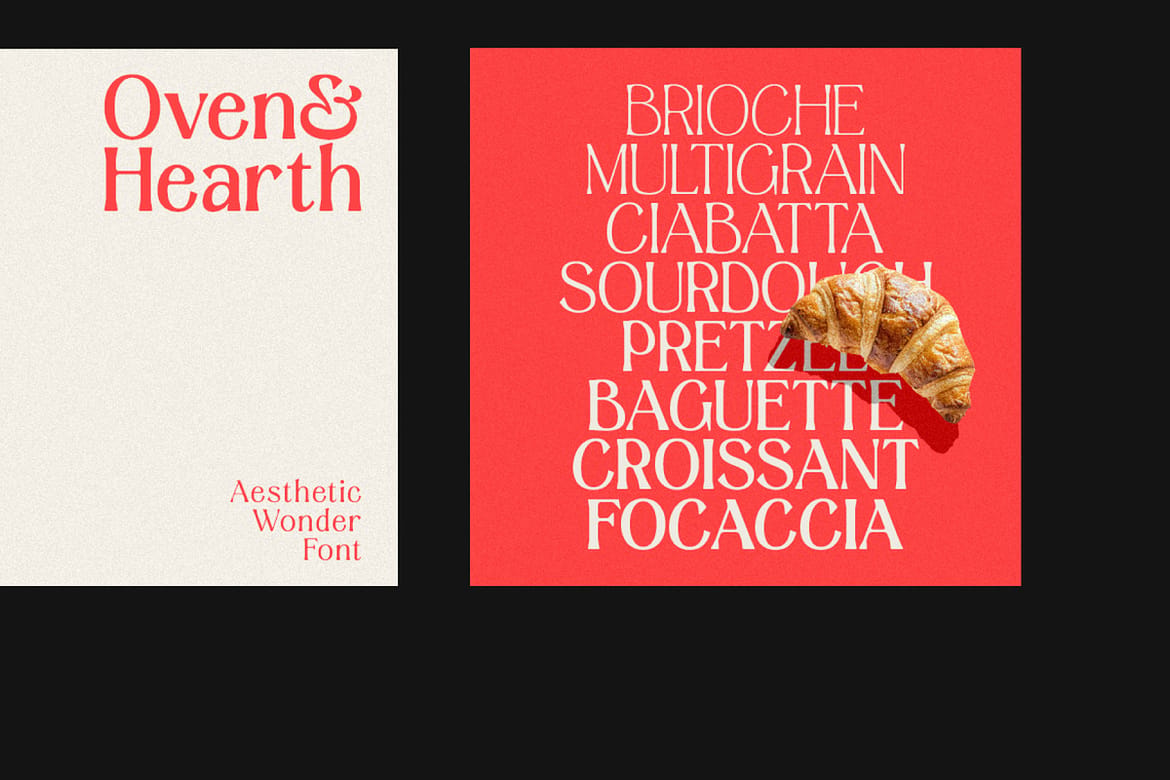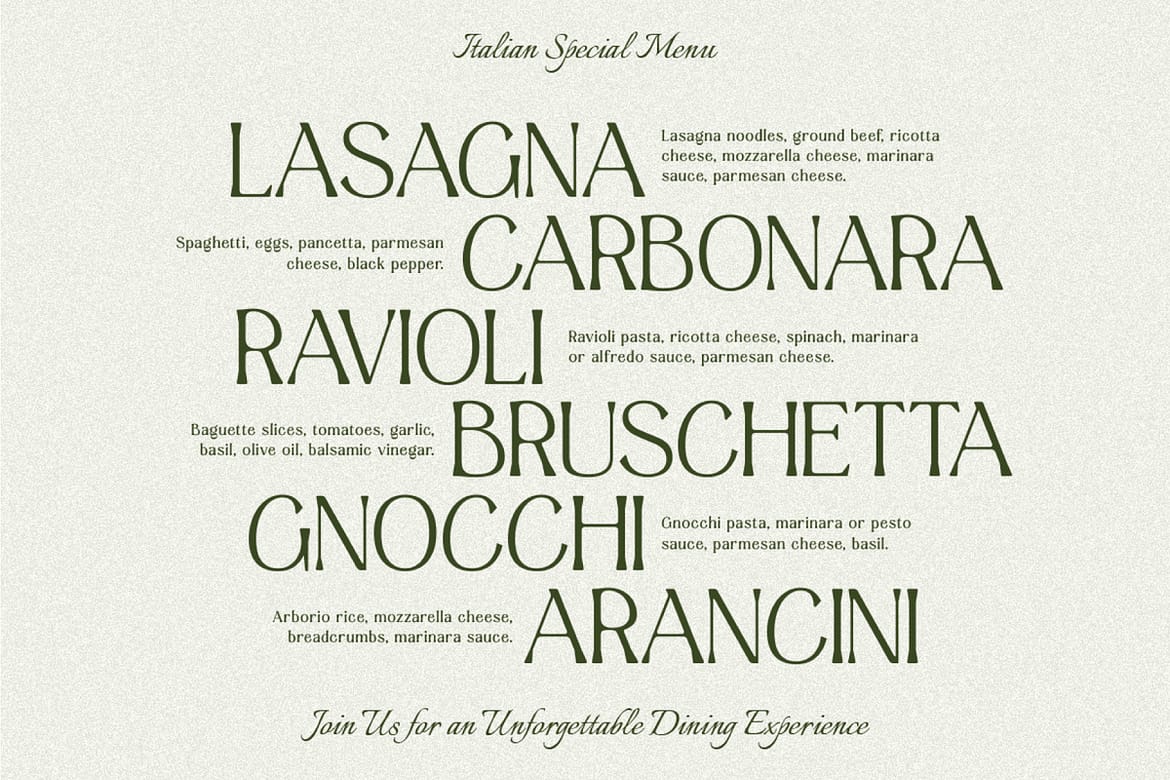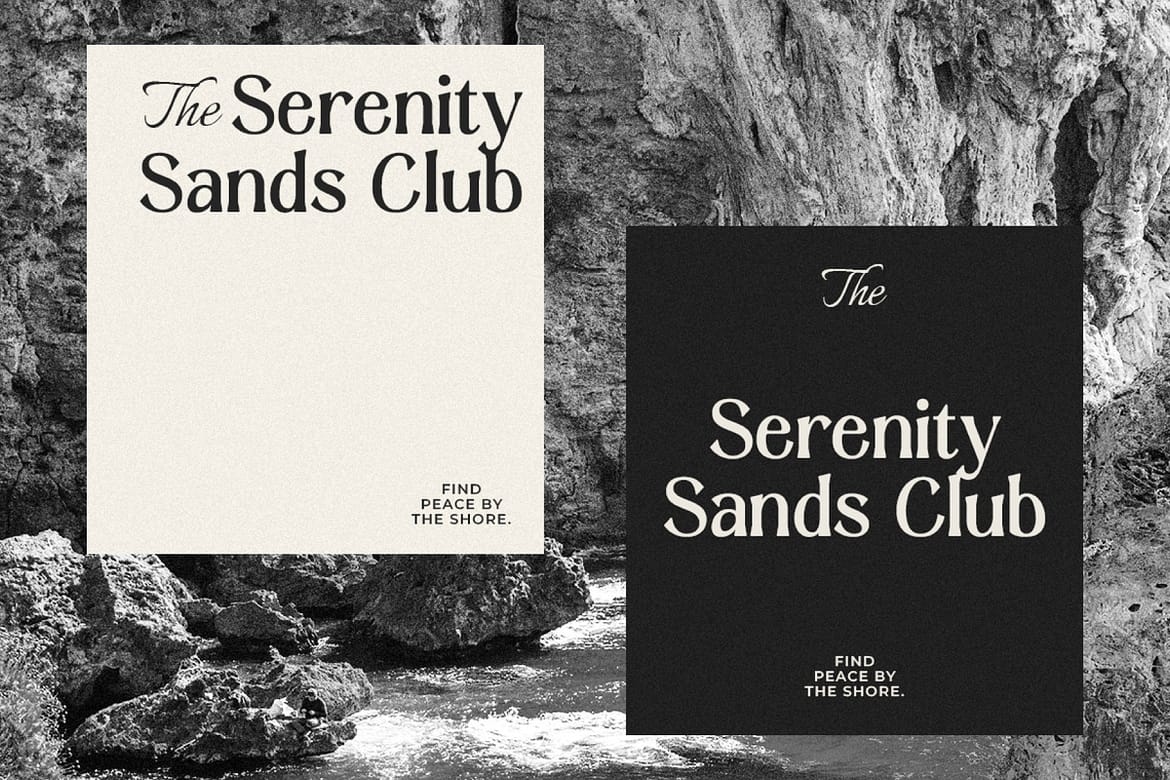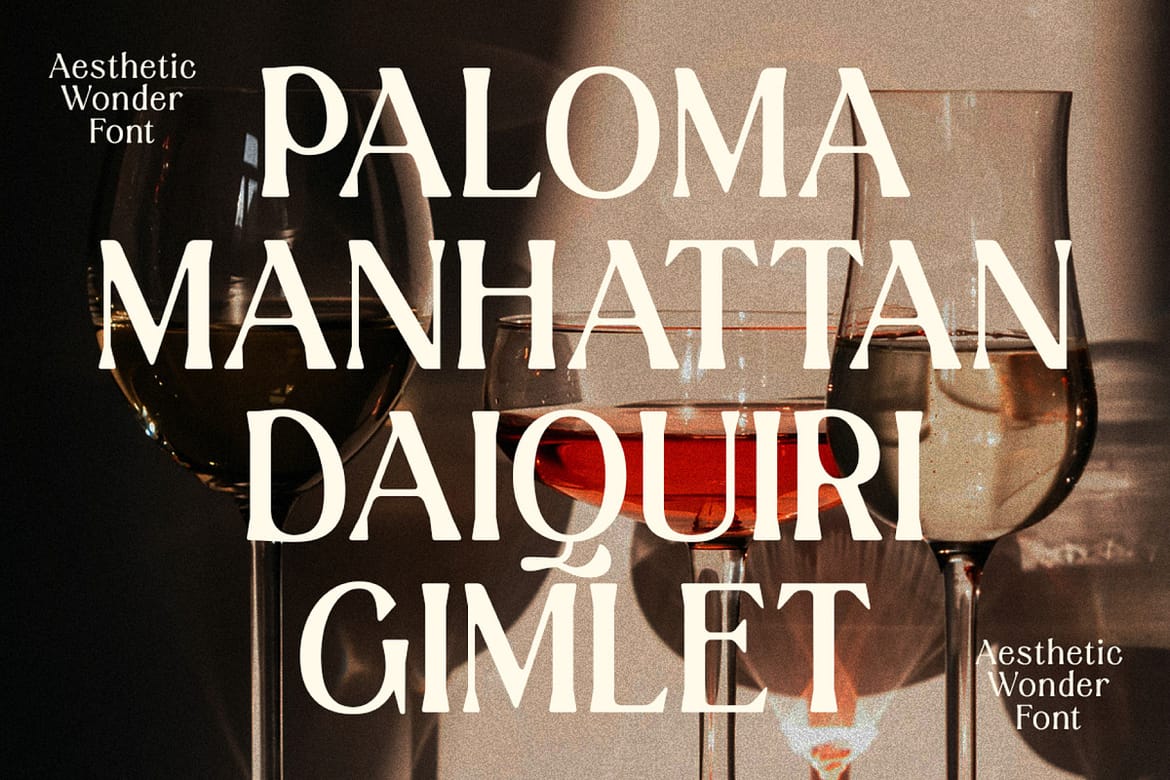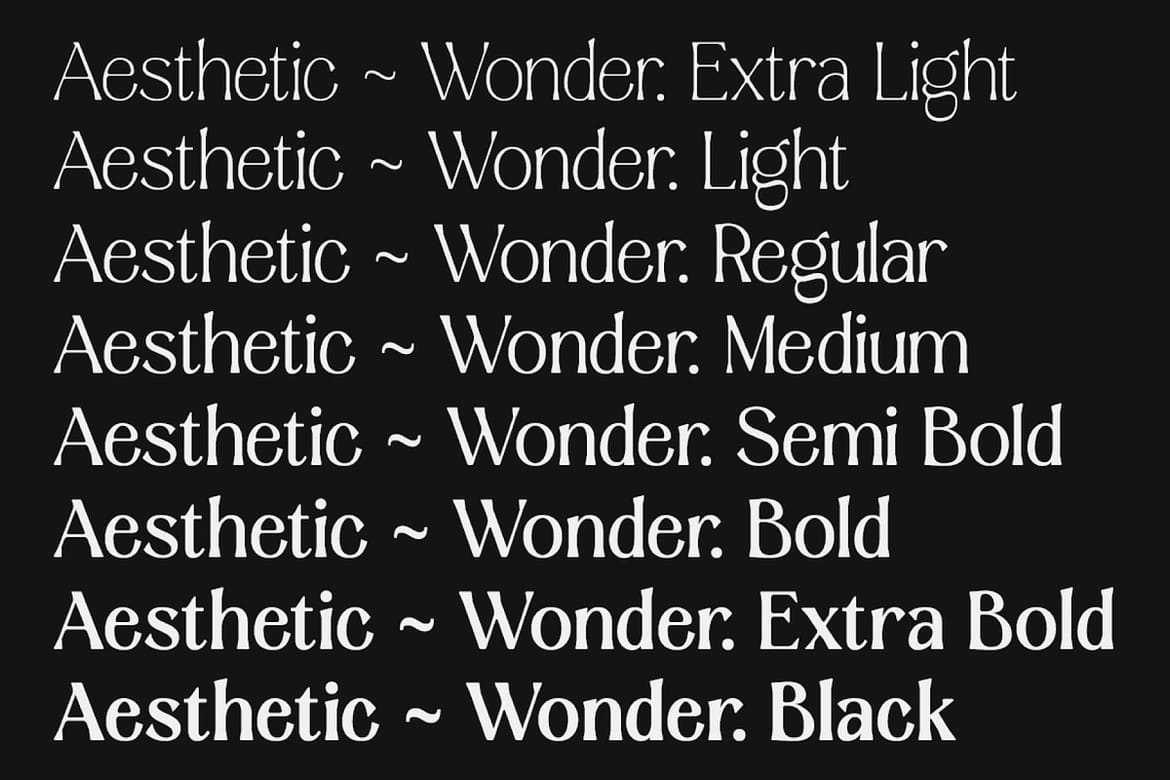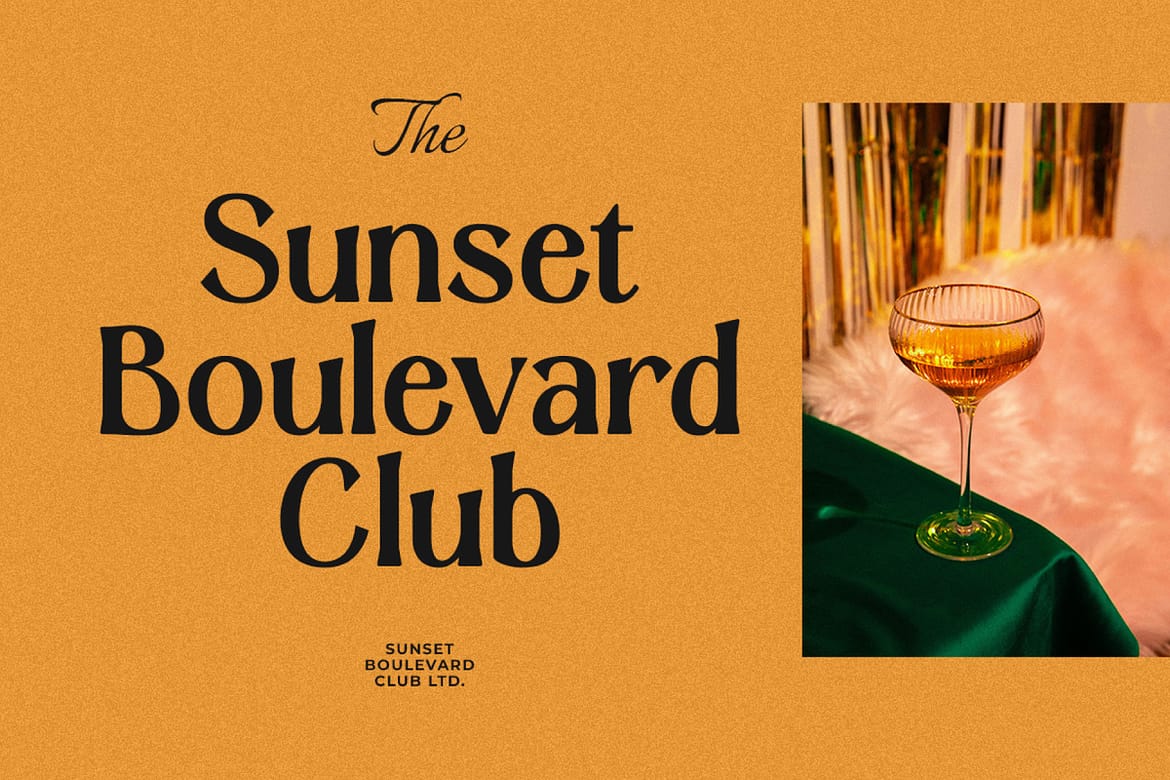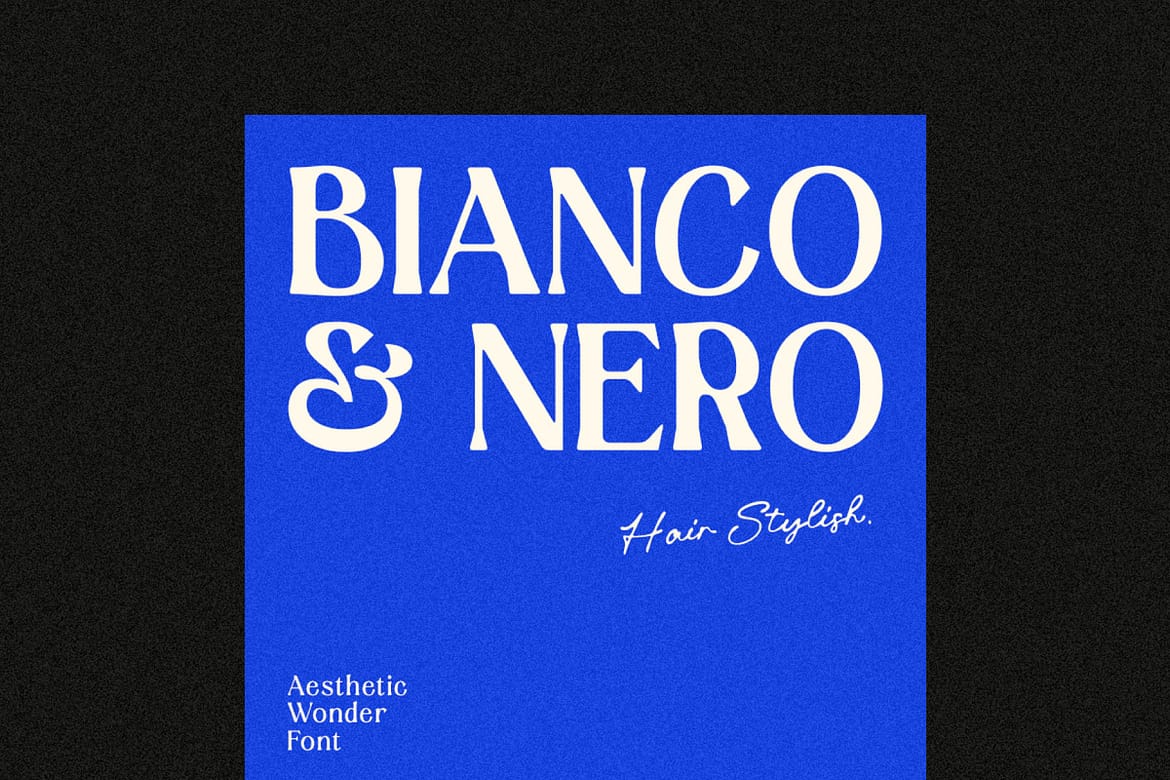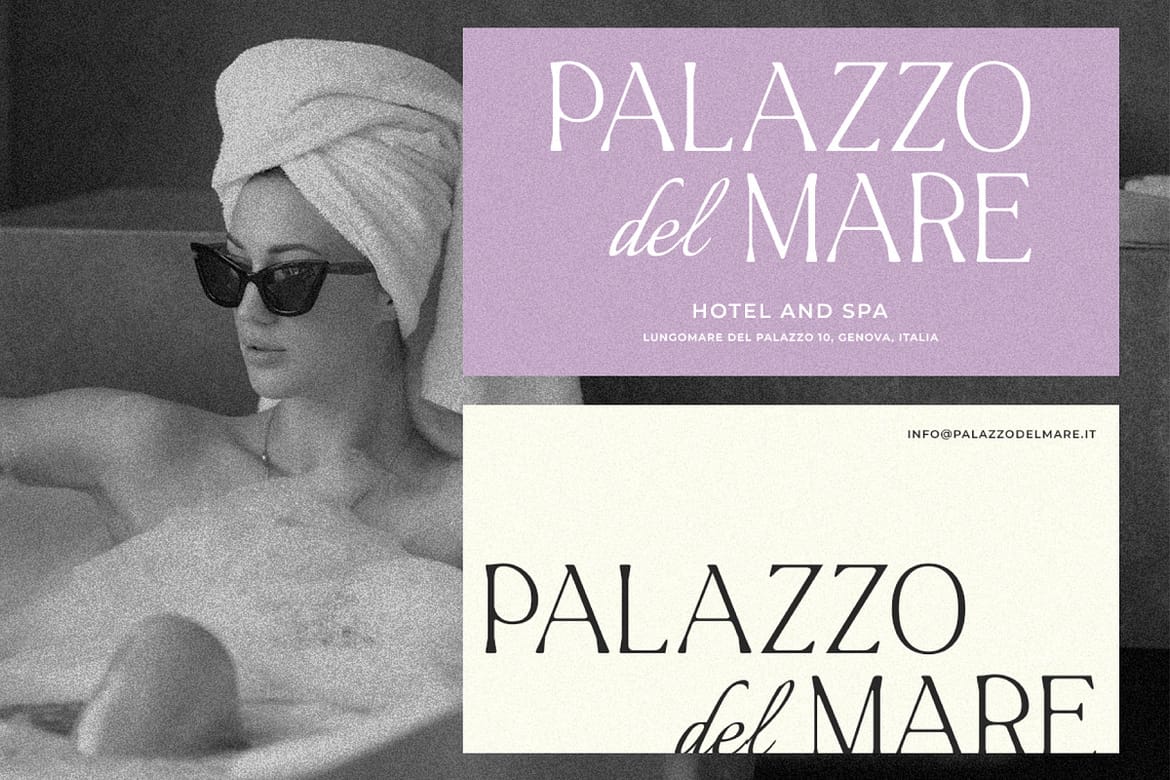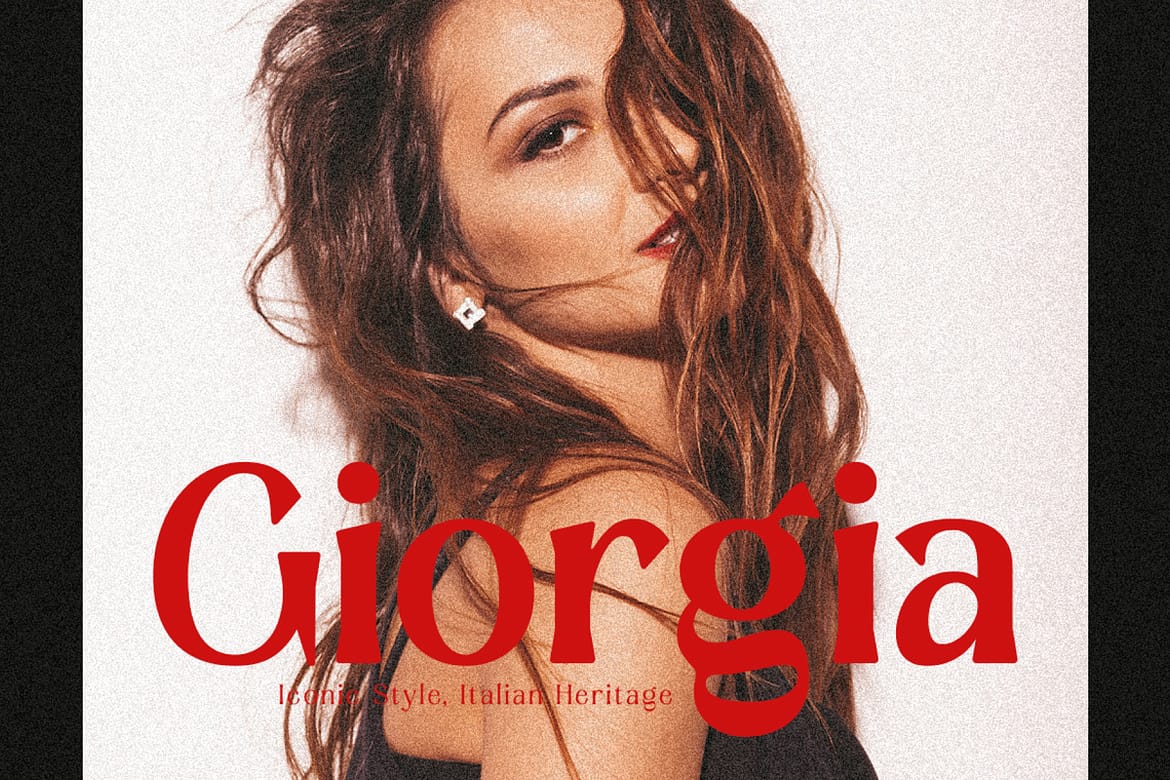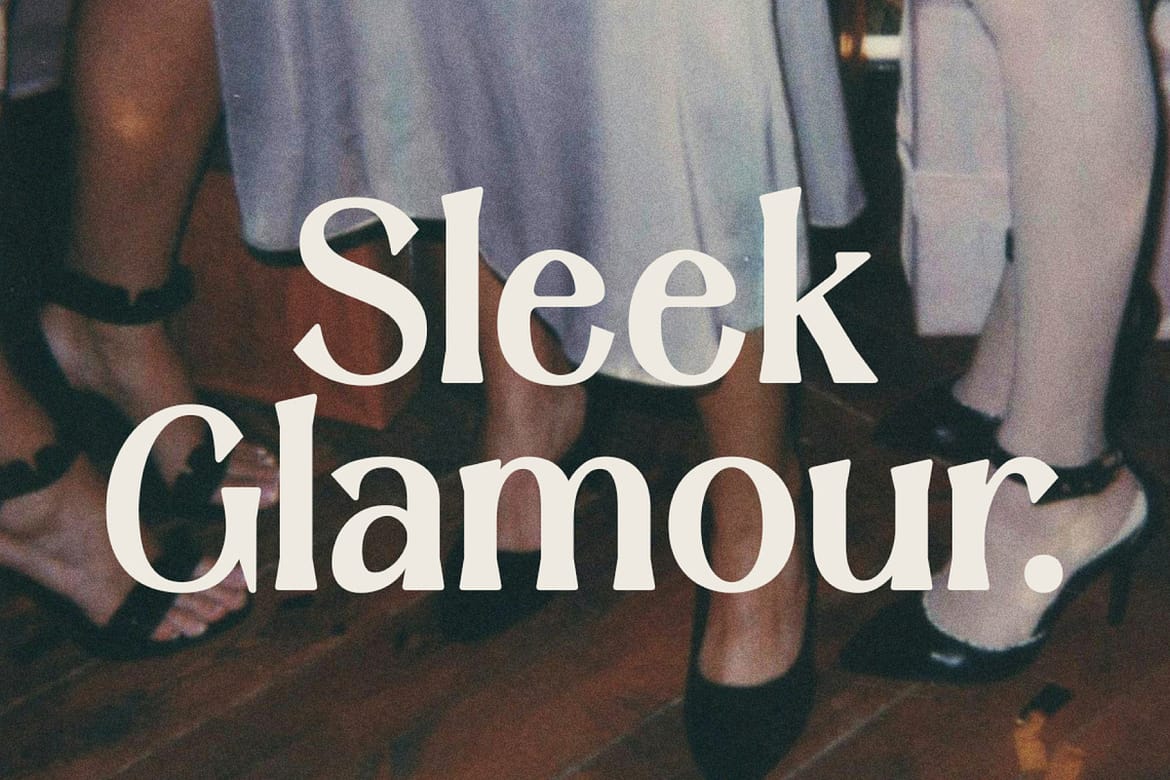
Aesthetic Wonder - Modern Aesthetic Font Family
Discover the elegance and sophistication of Aesthetic Wonder, a modern serif font family designed to elevate your design projects. With 8 meticulously crafted weights and the flexibility of variable fonts, Aesthetic Wonder seamlessly blends classic elegance with a contemporary touch. Perfect for branding, logos, posters, and beyond, this font family delivers unparalleled versatility and a timeless aesthetic. Choose Aesthetic Wonder to transform your visual identity and make a lasting impression.
Features: Uppercase, Lowercase, Numeral, Punctuation & Multilingual.
Multilingual supported: Afrikaans, Albanian, Basque, Catalan, Danish, Dutch, English, Estonian, Filipino, Finnish, French, German, Indonesian, Irish, Italian, Norwegian, Portuguese, Spanish, Swedish, and many more.
- 8 weights with variable font
- Multilingual support included